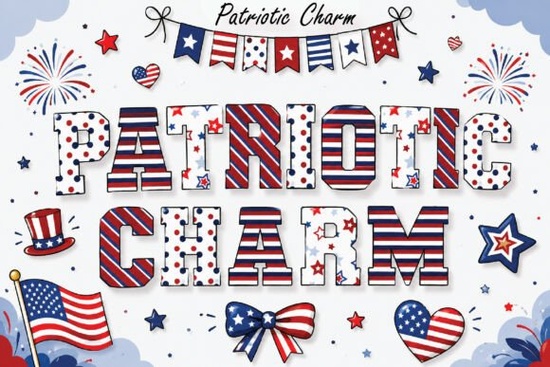
If you're looking for a bold, vibrant font that captures the spirit of American pride, the Patriotic Charm Font is a solid choice especially if you’re planning 4th of July designs, patriotic apparel, or themed projects. This playful yet professional alphabet pack brings together retro varsity vibes with classic red, white, and blue accents, making it ideal for creative work that needs energy and flair.
What Makes This Font Stand Out?
The Patriotic Charm Font isn’t just another patriotic-style typeface it’s built with attention to detail. Each letter feels like it belongs on a college jersey, a parade float, or a summer t-shirt. The sporty, slightly exaggerated forms give it a dynamic look, while subtle patriotic touches (like stars and stripes integrated into the letters) add authenticity without overwhelming the design.
It’s especially useful when you want to keep your message clear but still fun and eye-catching. Whether you’re designing for a small business, crafting for personal use, or selling on print-on-demand platforms, this font helps your work stand out during holiday seasons or patriotic campaigns.
Where Can You Use It?
This font works across many popular design formats and tools. You’ll find it useful in:
- 4th of July and Independence Day graphics – From social media posts to event banners
- T-shirt and apparel designs – Perfect for sublimation printing or screen printing
- College and team-themed projects – Ideal for school events, sports teams, or fan merchandise
- Stickers, planners, and printable templates – Great for crafters and digital product sellers
- Social media content – Adds instant holiday mood to posts and stories
Because it supports full color rendering in software like Adobe Illustrator, Photoshop, Canva, and Figma, your final output will show all the vibrant details. Just keep in mind: the preview on some sites might appear black and white due to system limits, but that doesn’t reflect how it looks in actual design apps.
How Does It Compare to Other Summer and Patriotic Fonts?
If you’ve explored fonts like summer beach decorative fonts or colorful summer fonts, you’ll notice this one leans more into structured, bold lettering rather than whimsical or hand-drawn styles. It’s not as casual as some beach-themed options, but it fits better when you need a confident, celebratory tone.
For those who love colorful, expressive typefaces, the Patriotic Charm Font delivers consistent vibrancy. Its layered design ensures colors stay sharp and readable, even at smaller sizes a key point for stickers or social media thumbnails.
Getting the Most from Your Design Workflow
When using this font, consider pairing it with clean, neutral backgrounds so the bold colors pop. White or navy-blue backdrops often work well, especially for t-shirts or posters. For digital use, try combining it with simpler sans-serif fonts for body text to balance the visual weight.
Also, always test your final design in the actual software you plan to use. That way, you can confirm the full color effect comes through as expected especially important if you're preparing files for print or sale.
Quick Tip for Print-on-Demand Sellers
Use this font in combination with high-contrast color schemes to ensure your designs are legible when printed on dark fabrics. Test a mock-up before going to production this saves time and avoids rework.
Now that you know what this font can do, the next step is to try it in a real project. Start with a simple 4th of July social media post or a fun planner sticker. See how it feels in your hands. If you enjoy the result, it could become a go-to for seasonal designs all year round.